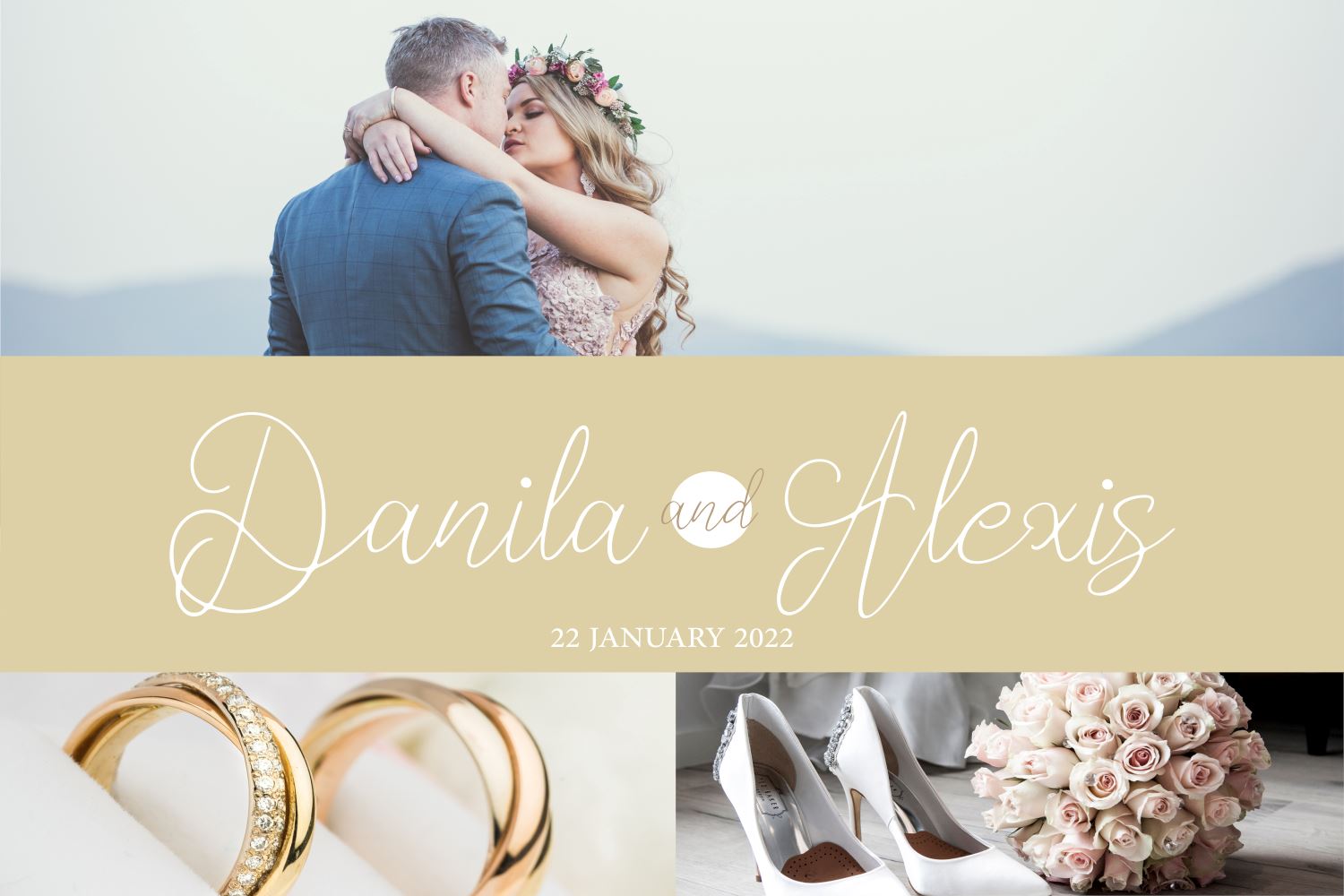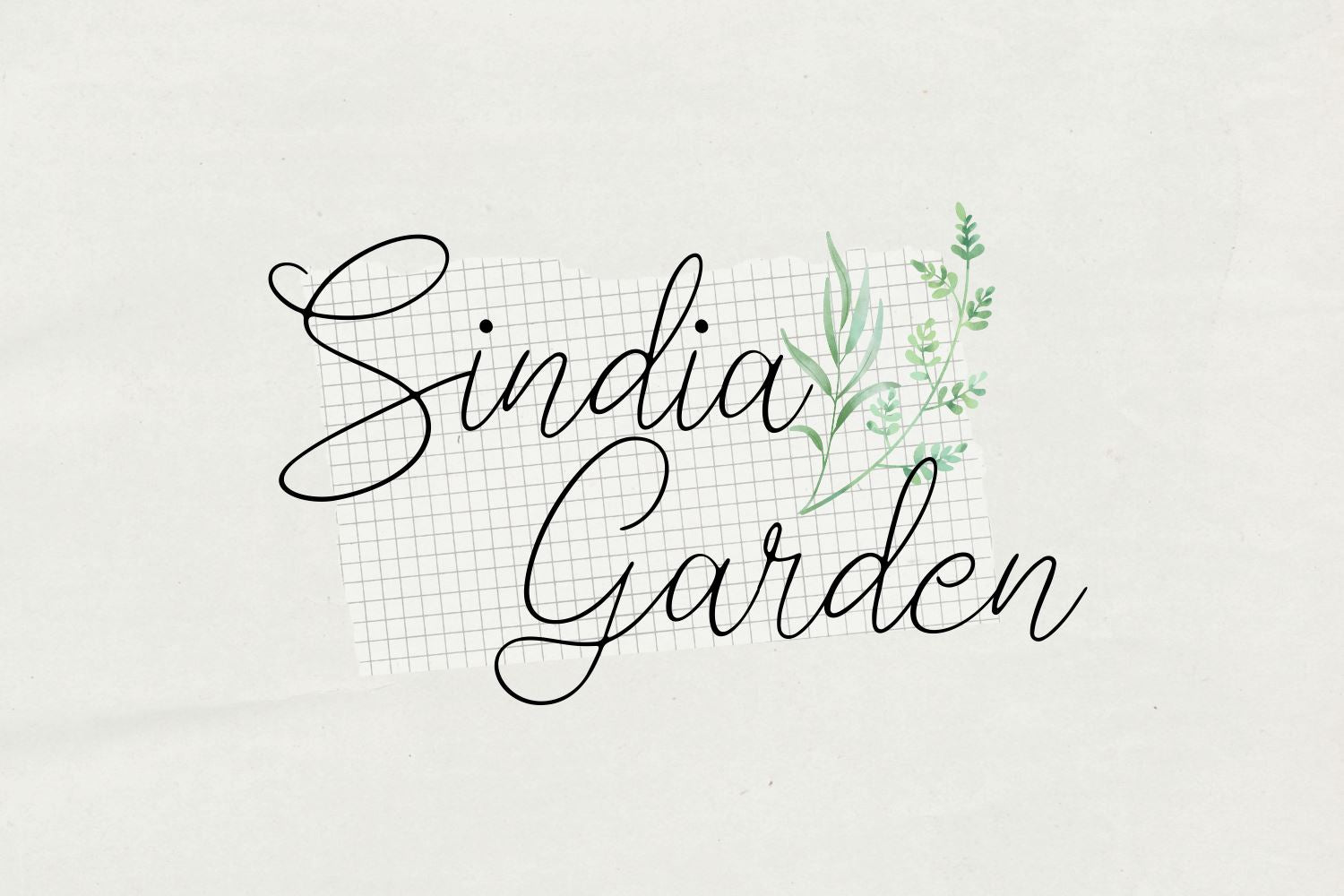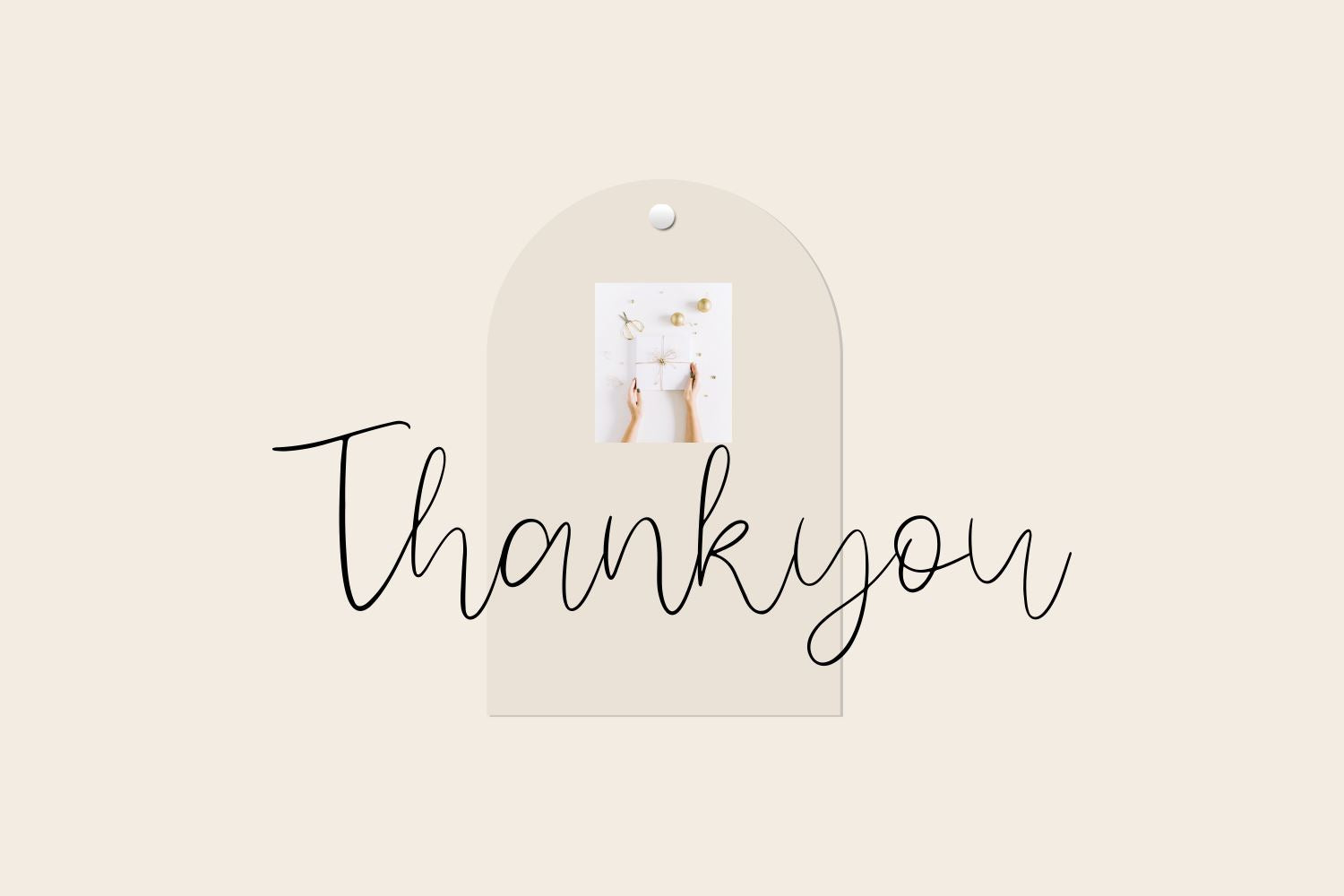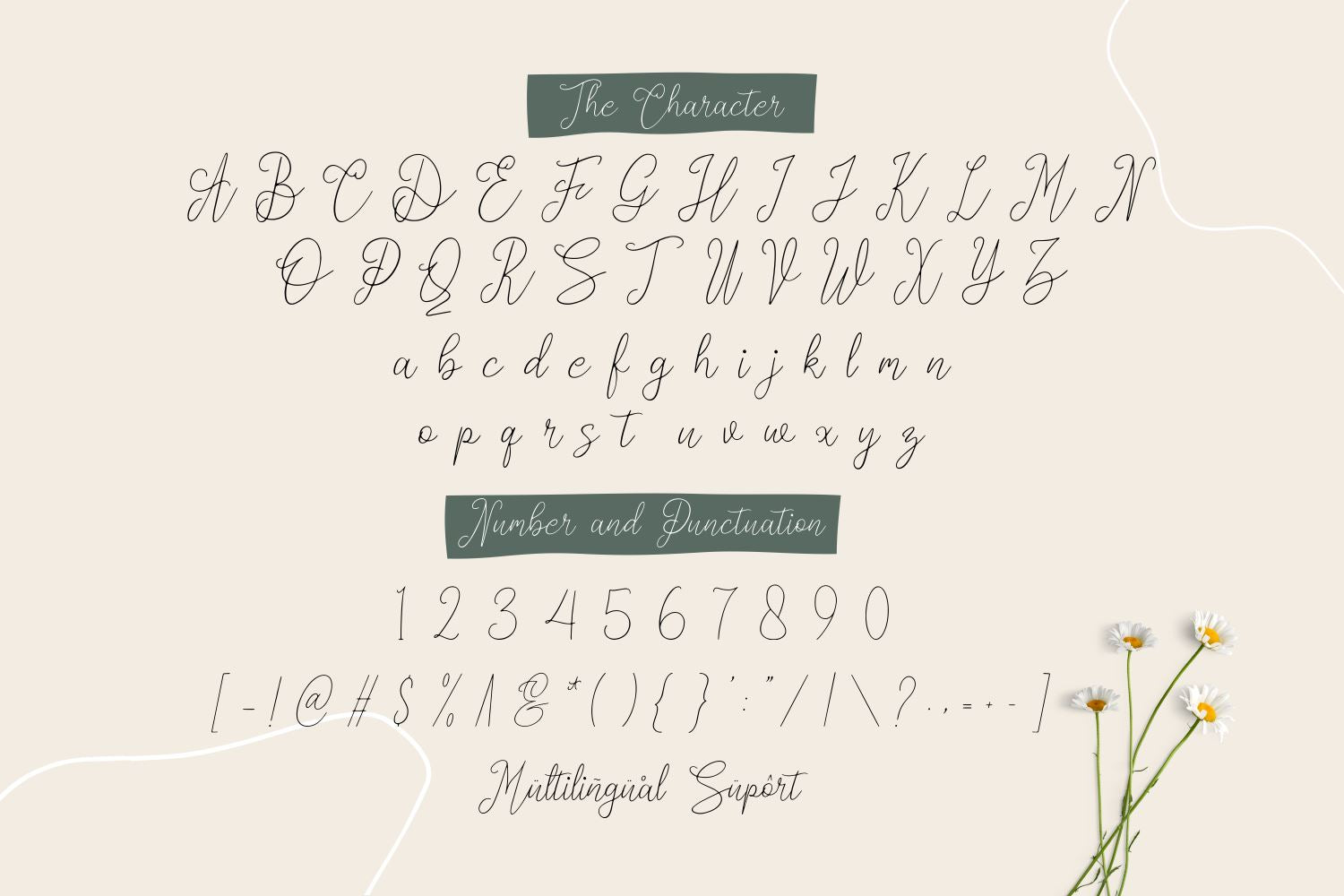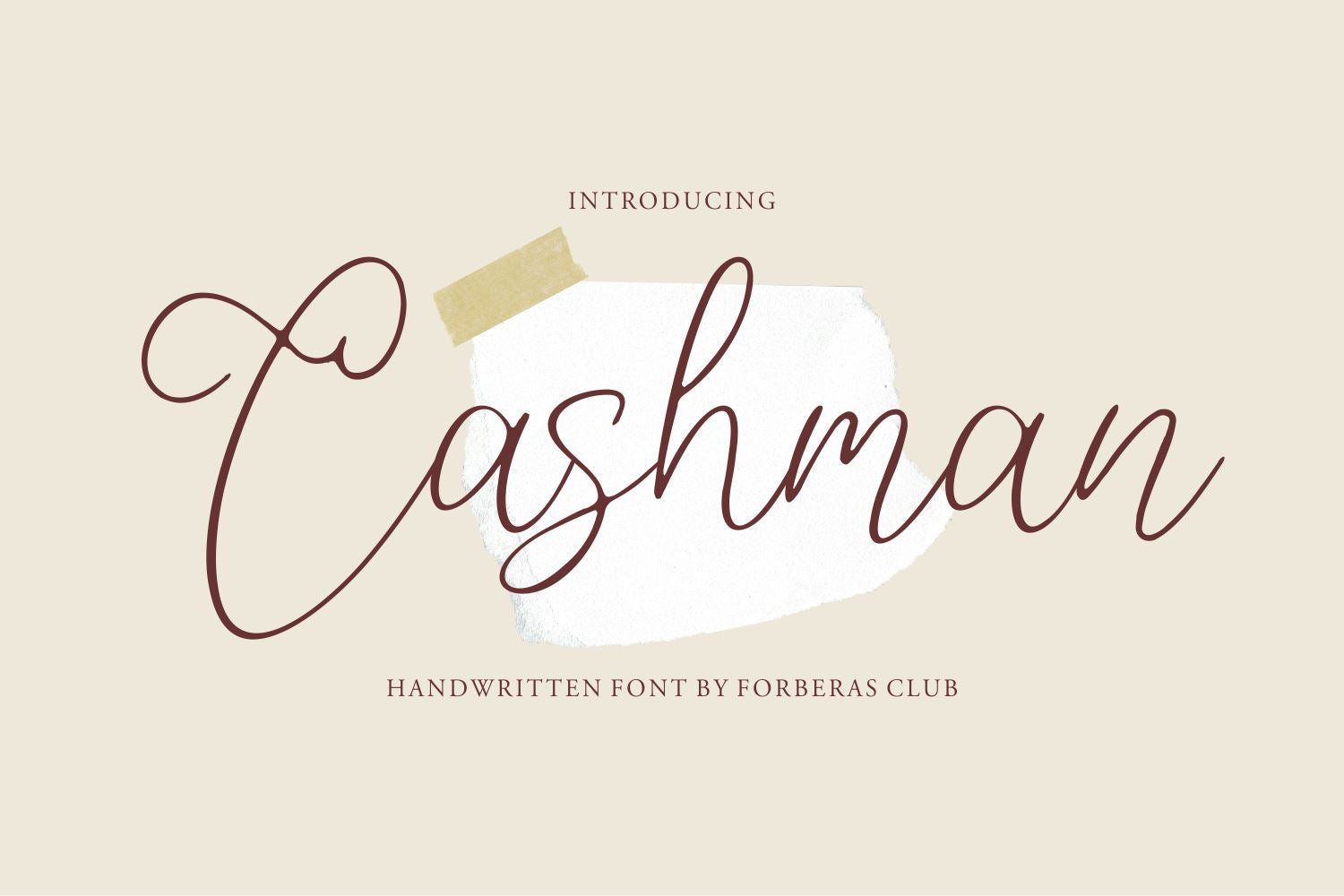
Cashman
About Cashman
Introducing Cashman Font by Forberas Club Cashman is a Modern Handwritten Font. Cashman is perfect for book cover, product packaging, branding project, megazine, social media, kisd book fonts, or just used to express words above the background. This font includes TTF and OTF, This font also multilingual support.